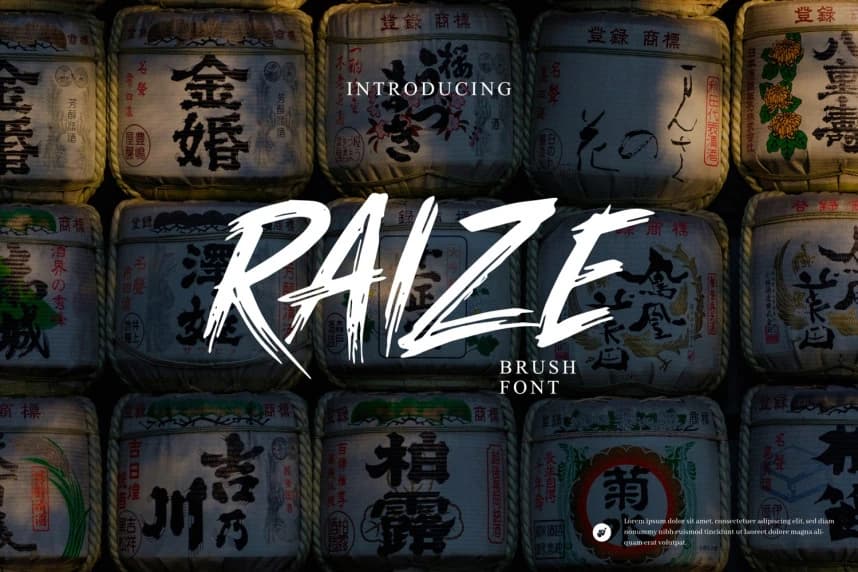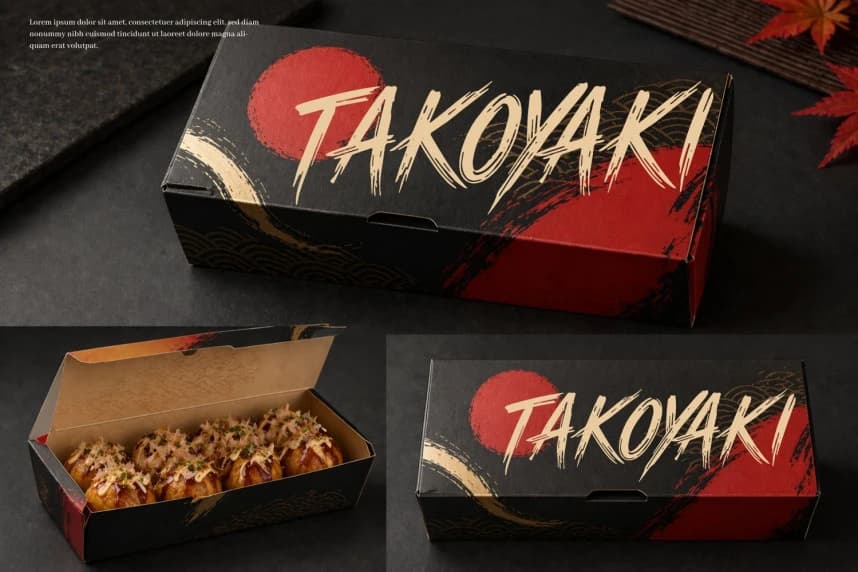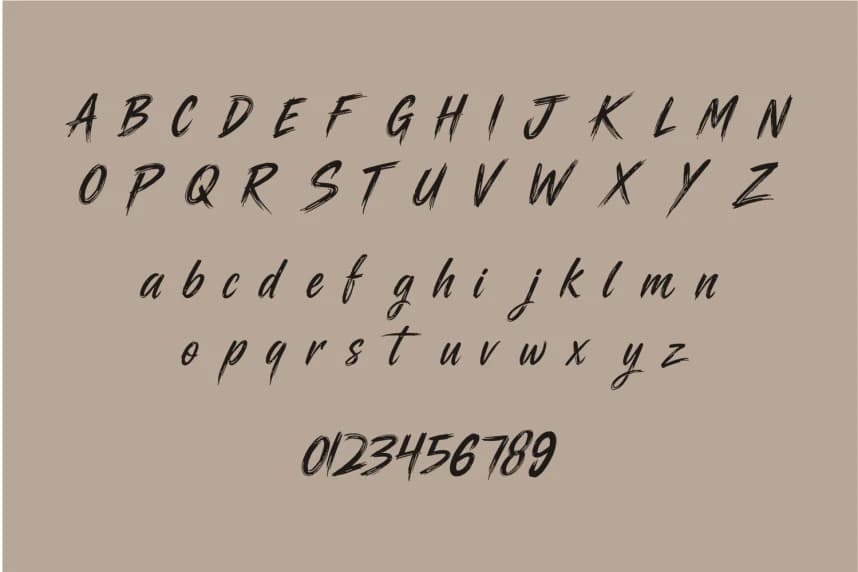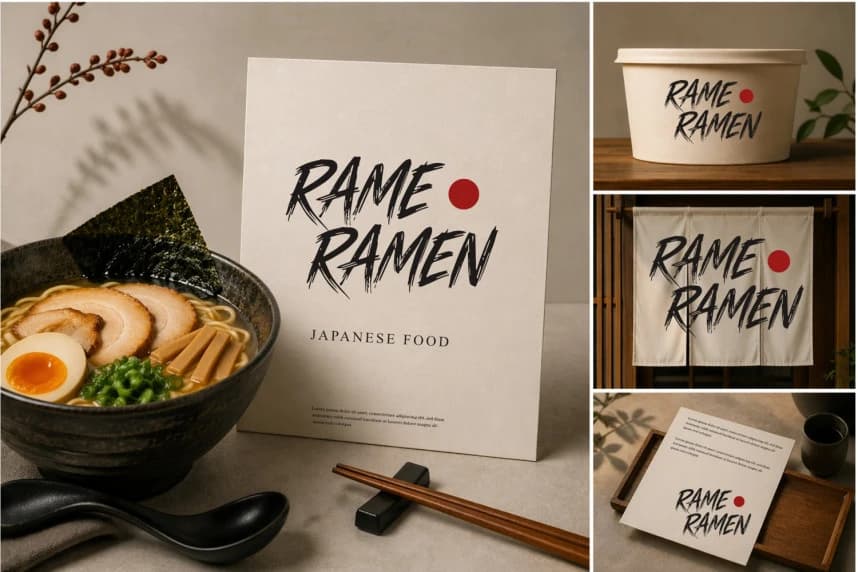
Raize Brush Font
Raize Brush Font is a typeface that mimics natural brushstrokes, with uneven, dynamic, and expressive linework. Each letter has varying thicknesses, giving it a authentic feel, as if written by hand.